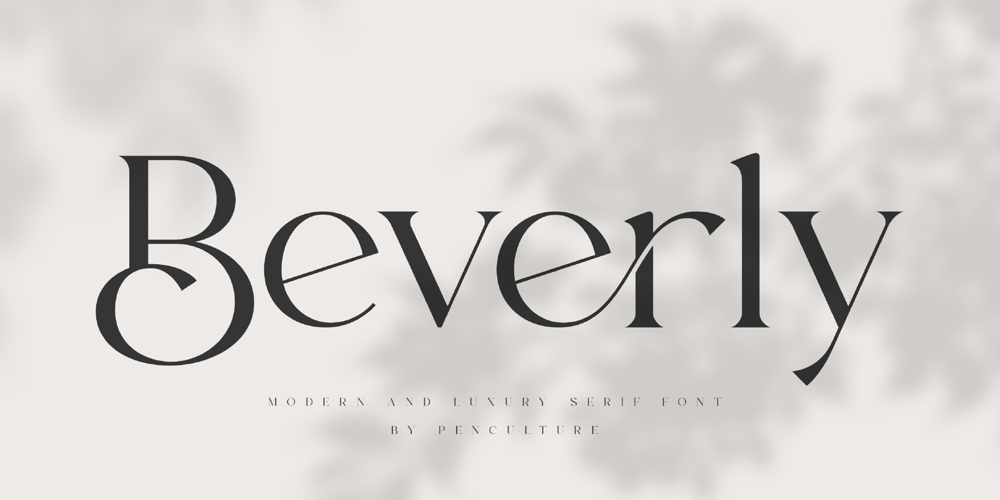
Beverly Font Family was designed by Revo Farsiky and published by Pen Culture. Beverly contains 1 styles and family package options. Proudly present the new “Beverly – Modern & Luxury Serif Font”Beverly is modern and luxury serif font. Beverly come with elegant stylistic alternate and ligature that perfect for any purpose like branding, logo design, poster, magazine, and many more. this font also has natural and elegant shape, so you can easily to customize it to your needs.I really hope you enjoy it – please do let me know what you think, comments & likes are always hugely welcomed and appreciated. More importantly, please don’t hesitate to drop me a message if you have any issues or queries.Thank you